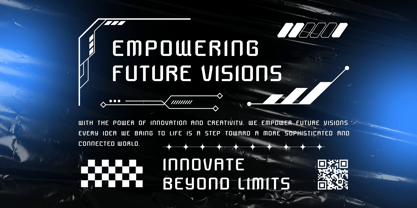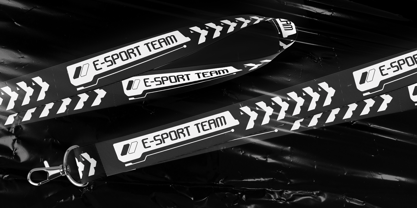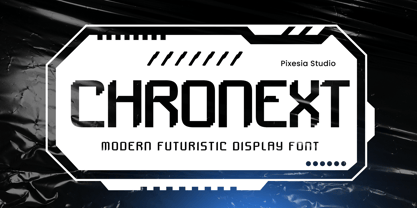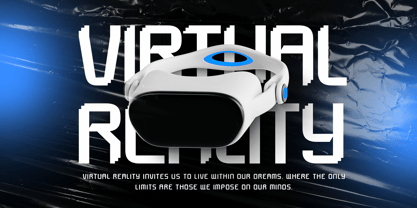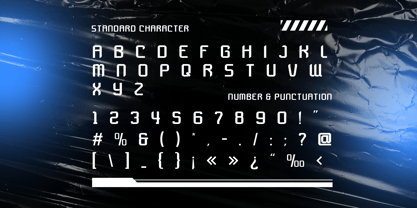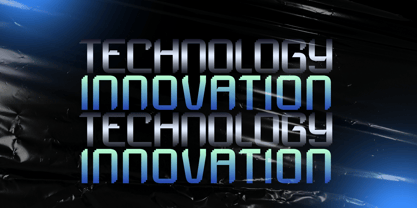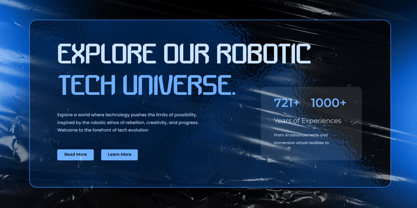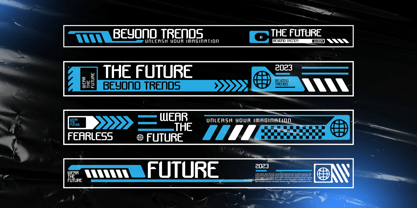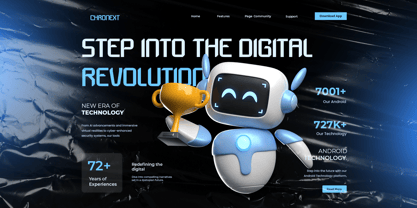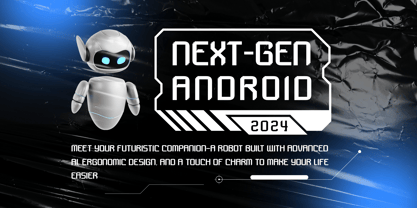
Chronext
by Pixesia Studio
The Chronext Font Family was designed by Abul Almaududi and published by Pixesia Studio. Chronext contains 1 styles. More about this family
Introducing Chronext - Modern Futuristic Display Font Chronext is a modern pixelated futuristic font, combining strong techno block characters with a sleek, modern design. Its well-defined grid structure creates a balance between simplicity and complexity, Chronext is perfectly suited for branding, logotypes, quotes, labels, social media posts, advertisements, product packaging, product designs, label, photography, watermark, invitation, stationery and any project that demands a bold, forward-looking sleek and futuristic. FEATURES - All Caps - Numbering and Punctuations - Works on PC or Mac - Simple Installation - PUA Encoded Characters - Easily accessible without additional design software. - Support Adobe Illustrator, Adobe Photoshop, Adobe InDesign, also works on Microsoft Word - Multilingual Support including Afrikaans, Albanian, Basque, Catalan, Danish, Dutch, English, Estonian, Faroese, Filipino, Finnish, French, Galician, German, Icelandic, Indonesian, Irish, Italian, Malay, Norwegian Bokmål, Portuguese, Spanish, Swahili, Swedish, Zulu Hope you Like it. Thanks.
Designers: Abul Almaududi
Foundry: Pixesia Studio